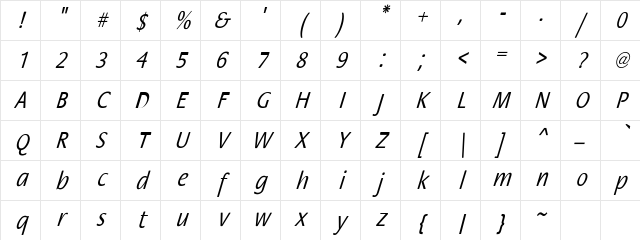
FloraCndObl-Nor Regular
Design Context for FloraCndObl-Nor
FloraCndObl-Nor is a composed and adaptable typeface that performs quietly and consistently across a wide range of design contexts.